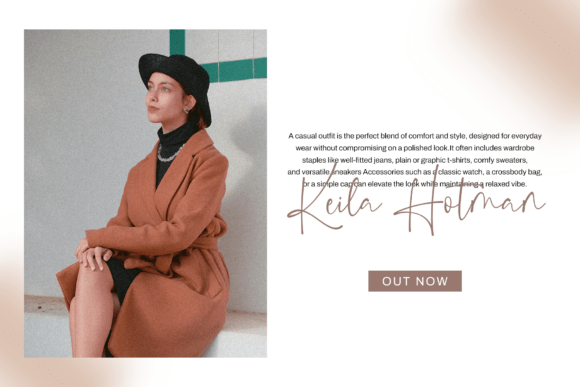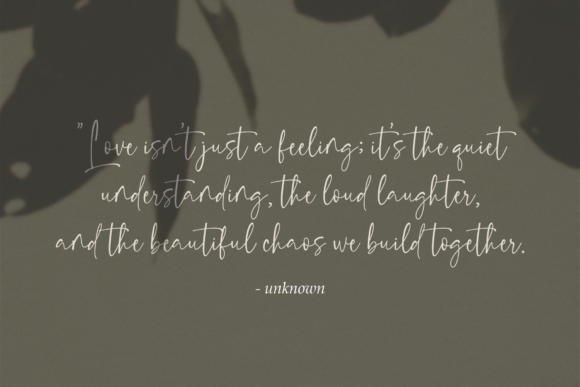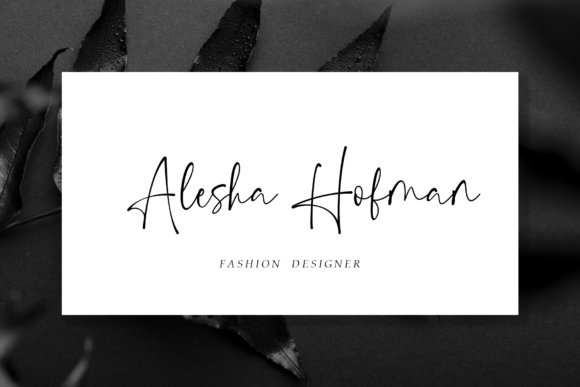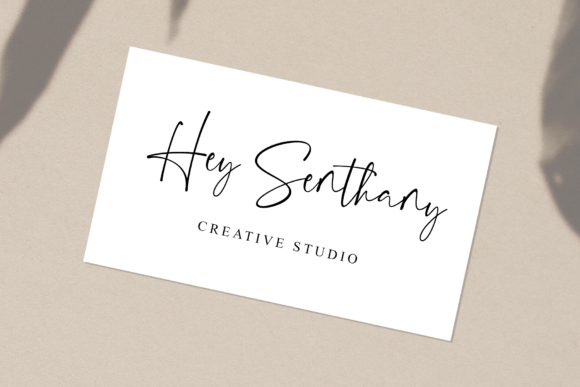
Introducing Belathine Font: The Epitome of Elegance and Sophistication
In the realm of typography, few fonts manage to convey the perfect blend of elegance, modernity, and sophistication. Belathine Font is one such remarkable typeface that has captured the hearts of designers and crafters worldwide. This stunning calligraphy font is designed to bring a touch of refinement and poise to various creative projects, making it an indispensable asset for anyone looking to elevate their design game.
The Design Philosophy Behind Belathine
Belathine Font is crafted with meticulous attention to detail, boasting smooth strokes and delicate curves that exude a sense of fluidity and dynamism. The design philosophy behind Belathine revolves around creating a font that not only resonates with modern design sensibilities but also pays homage to the timeless beauty of traditional calligraphy. Each letterform is carefully shaped to convey a sense of movement and elegance, making Belathine a versatile typeface suitable for a wide range of applications.
Key Features of Belathine Font
- Elegant and Refined Aesthetic: Belathine’s sophisticated design makes it perfect for projects that demand a high level of elegance and poise, such as luxury branding, high-end fashion, and upscale event invitations.
- Smooth Strokes and Delicate Curves: The font’s smooth strokes and delicate curves lend a graceful and natural handwritten feel to any text, adding a personal touch to digital and print materials.
- Versatility: Belathine is incredibly versatile, making it suitable for a variety of creative projects, including but not limited to, logo design, social media graphics, packaging, and web design.
- Modern and Sophisticated: The font’s modern design ensures that it fits seamlessly into contemporary design trends, while its sophisticated aesthetic guarantees a timeless appeal.
Applications of Belathine Font
Belathine’s unique blend of elegance and modernity makes it an excellent choice for a multitude of design projects. Here are some of the most popular applications of Belathine Font:
- Luxury Branding: Elevate your brand’s image with Belathine’s sophisticated and refined aesthetic, perfect for creating logos, business cards, and letterheads.
- Fashion and Beauty: Add a touch of glamour to your fashion and beauty projects, including fashion magazines, product packaging, and promotional materials.
- Wedding and Event Planning: Make your wedding invitations, event flyers, and other stationery items stand out with Belathine’s elegant and graceful design.
- Digital Content: Enhance your digital presence with Belathine, ideal for website headers, social media graphics, and blog posts.
Why Choose Belathine Font?
In a world where typography plays a crucial role in design, Belathine Font stands out as a beacon of elegance and sophistication. Here are a few reasons why designers and crafters are gravitating towards Belathine:
- Unique and Distinctive: Belathine’s unique design ensures that your projects stand out from the crowd, making it an excellent choice for those looking to create a lasting impression.
- Easy to Read: Despite its elegant and refined aesthetic, Belathine remains highly legible, making it suitable for both headings and body text.
- Highly Versatile: Whether you’re working on a digital project or a print material, Belathine adapts seamlessly, ensuring a consistent and professional look across all mediums.
| Font Name | Belathine Font |
| Author | MJB Letters |
Belathine Font is more than just a typeface; it’s a design statement that embodies elegance, modernity, and sophistication. Its smooth strokes, delicate curves, and versatile nature make it an indispensable tool for designers and crafters looking to elevate their creative projects. Whether you’re aiming to create a luxurious brand image, craft beautiful wedding invitations, or simply add a touch of elegance to your digital content, Belathine is the perfect choice. Embrace the beauty of Belathine Font and discover a world of typographic possibilities that will transform your designs and leave a lasting impression on your audience.